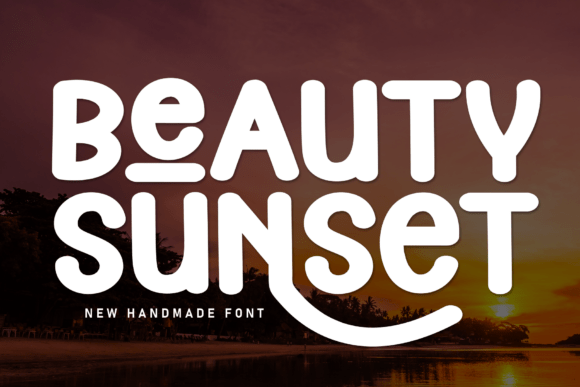
Introducing Beauty Sunset Font: The Perfect Blend of Clarity and Relaxed Elegance
In the world of typography, fonts play a crucial role in conveying the tone and personality of a brand or design. When it comes to creating visually appealing and effective designs, selecting the right font is essential. This is where Beauty Sunset Font comes into play – a neat and casual display font that strikes the perfect balance between clarity and a relaxed, approachable vibe.
What is Beauty Sunset Font?
Beauty Sunset Font is a thoughtfully designed display font that embodies the essence of modern elegance with a laid-back twist. Its clean lines, friendly letterforms, and balanced structure make it an ideal choice for a wide range of design applications, from headlines and posters to packaging and branding.
This font is carefully crafted to bring a sense of playfulness and personality to any project without overwhelming the message. Whether you’re looking to create a bold statement or a subtle impression, Beauty Sunset Font is the perfect tool to help you achieve your design goals.
Key Features of Beauty Sunset Font
- Clean Lines and Friendly Letterforms: The font’s clean lines and friendly letterforms make it easy to read and understand, while also conveying a sense of approachability and warmth.
- Balanced Structure: The font’s balanced structure ensures that it remains legible and clear, even at larger font sizes.
- Playful Energy: Beauty Sunset Font has a playful energy that brings personality to any design project.
- Modern yet Laid-Back: The font’s unique blend of modern elegance and laid-back charm makes it perfect for designs that aim to feel contemporary yet relaxed.
Use Cases for Beauty Sunset Font
Beauty Sunset Font is a versatile font that can be used in a variety of design applications, including:
- Headlines: Use Beauty Sunset Font to create bold and eye-catching headlines that grab attention.
- Posters: The font’s clean lines and playful energy make it perfect for posters that require a modern yet laid-back feel.
- Packaging: Beauty Sunset Font is ideal for packaging designs that require a font that is both stylish and readable.
- Branding: Use the font to create a unique and memorable brand identity that reflects your brand’s personality.
Benefits of Using Beauty Sunset Font
Using Beauty Sunset Font in your design projects offers several benefits, including:
- Improved Readability: The font’s clean lines and balanced structure ensure that your text is easy to read and understand.
- Increased Style: Beauty Sunset Font adds a touch of elegance and sophistication to any design project.
- Enhanced Personality: The font’s playful energy brings personality and character to your designs.
- Versatility: Beauty Sunset Font can be used in a wide range of design applications.
Tips for Using Beauty Sunset Font Effectively
To get the most out of Beauty Sunset Font, here are some tips to keep in mind:
- Use it for Headlines: Beauty Sunset Font is perfect for headlines and titles, where its bold and playful energy can shine.
- Pair it with Other Fonts: Experiment with pairing Beauty Sunset Font with other fonts to create a unique and visually appealing typography.
- Adjust Font Size: Adjust the font size to suit your design needs, from large and bold to small and subtle.
- Experiment with Colors: Try out different colors and textures to add depth and interest to your designs.
Beauty Sunset Font is a unique and versatile font that offers the perfect blend of clarity and relaxed elegance. Its clean lines, friendly letterforms, and balanced structure make it ideal for a wide range of design applications, from headlines and posters to packaging and branding. With its playful energy and modern yet laid-back vibe, Beauty Sunset Font is the perfect choice for designers looking to add a touch of style and personality to their designs.